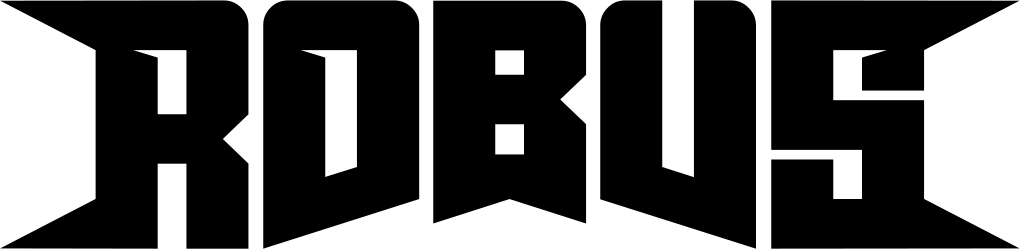
Robus Font
Designed byToko Laris Djaja
The future is here, and that is why for typography to be superior, you need gaming fonts that are strong, bold, and always modern. The Robus only contains two sets of capitalized alphabets. One set is jagged, and the other is less pointy, Keep in mind the letterforms do not include numbers or symbols.
This biker tattoo font is best for places where you need something futuristic, like robotic projects, games, movies, books, and wherever you wish to have sharp edges.